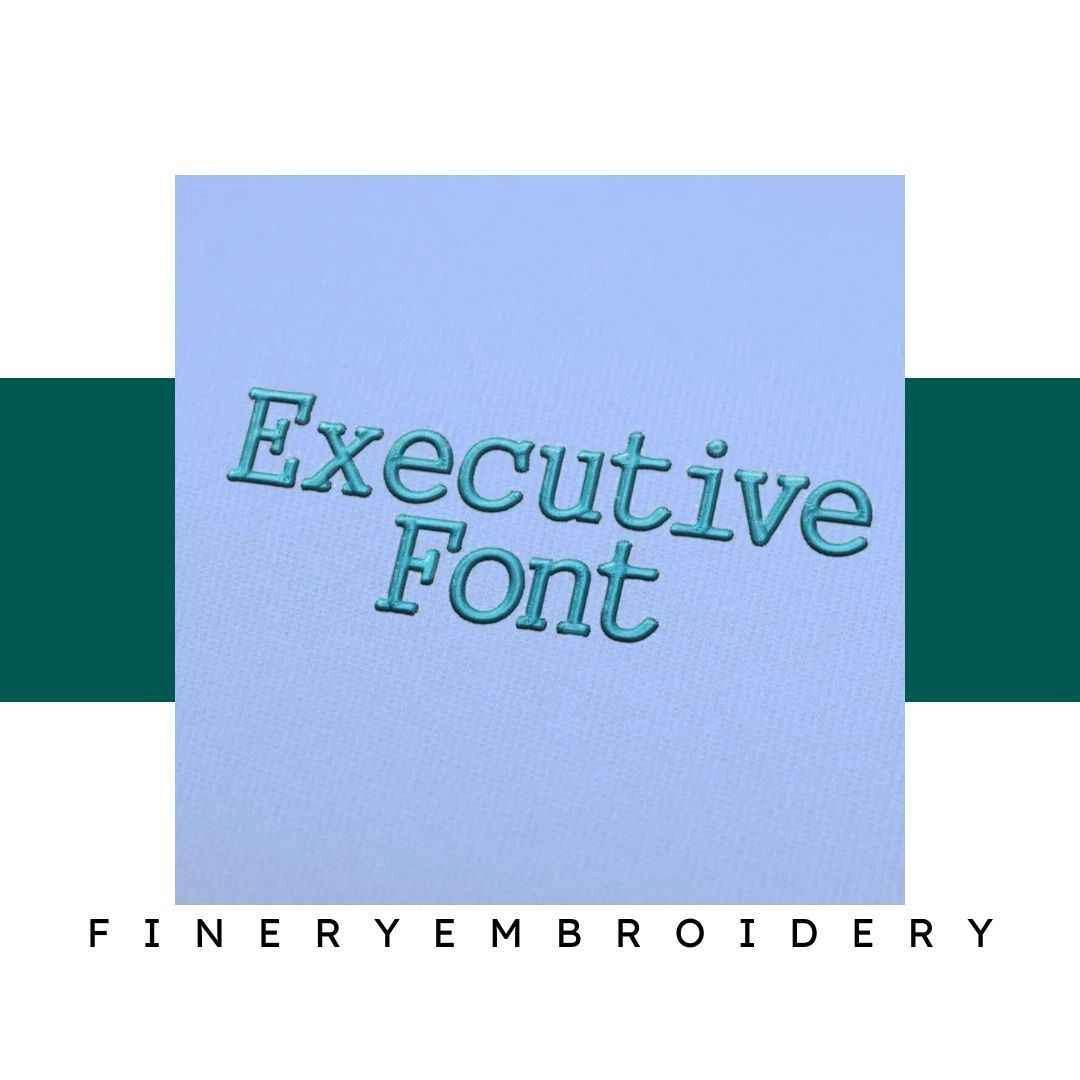
Transform your embroidery projects into timeless masterpieces with our Executive Embroidery Alphabet Font Set, where elegance meets precision!
Introducing the Executive Embroidery Alphabet Font Set, meticulously designed to elevate your embroidery creations with an air of sophistication. This font set offers a perfect balance of elegance and high-quality craftsmanship, making it an essential addition to your embroidery toolkit. Whether you’re a beginner or an expert, this set is tailored to fulfill your creative visions with clarity and professional results.
The Executive Embroidery Alphabet Font Set is all about refined elegance. Each letter has been created with precision, ensuring that your projects exhibit outstanding clarity and a professional finish. This set works seamlessly to elevate your work, allowing you to create personalized pieces that make a lasting impression.
Versatile and easy to use, this font set opens up a world of creative possibilities. From elegant monograms on gifts to professional branding on work uniforms, the applications are endless. You can add a touch of sophistication to home décor, custom apparel, and special occasion items, making each piece uniquely yours.